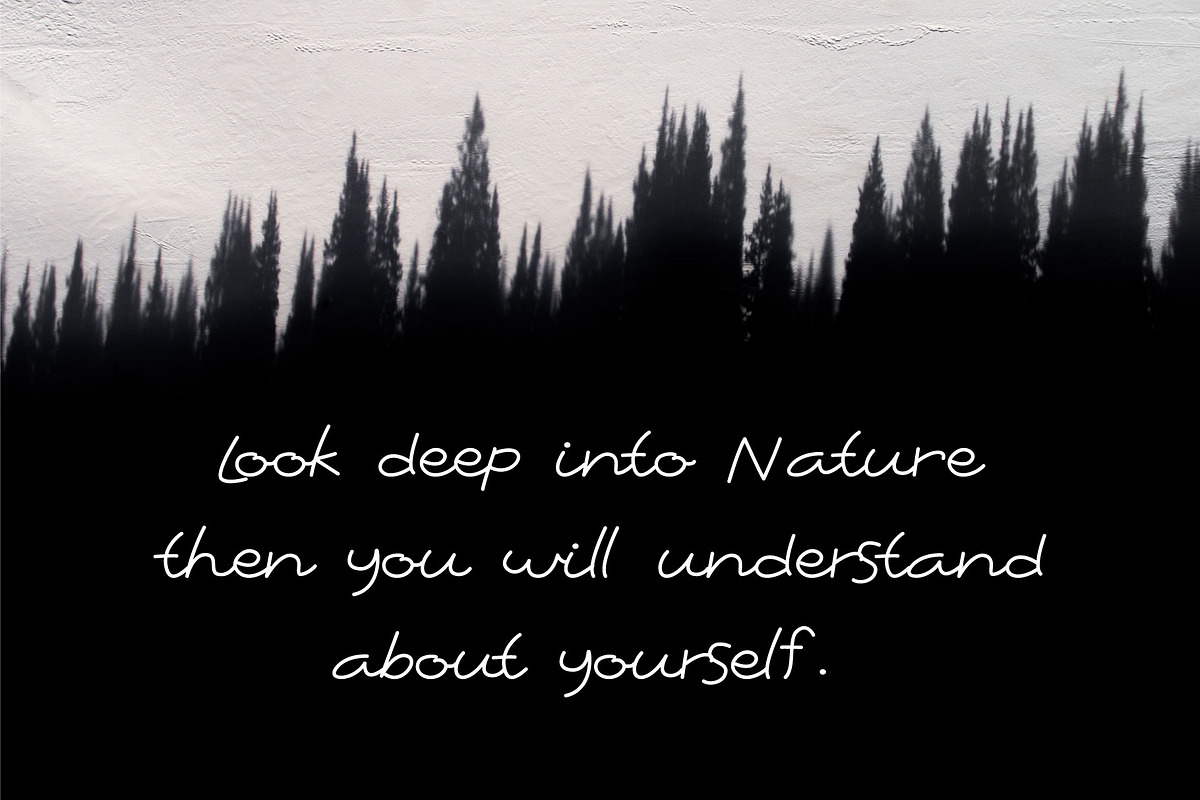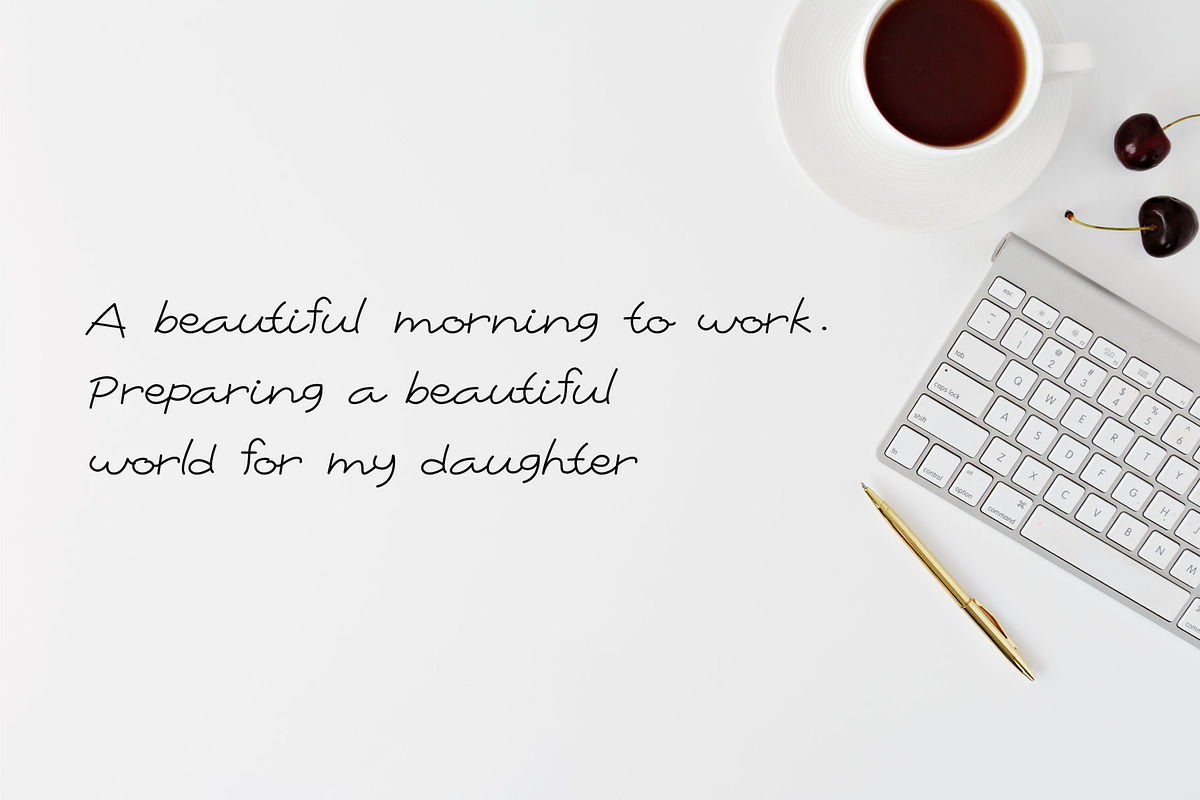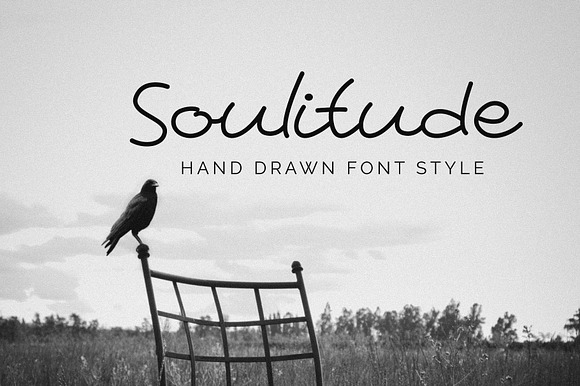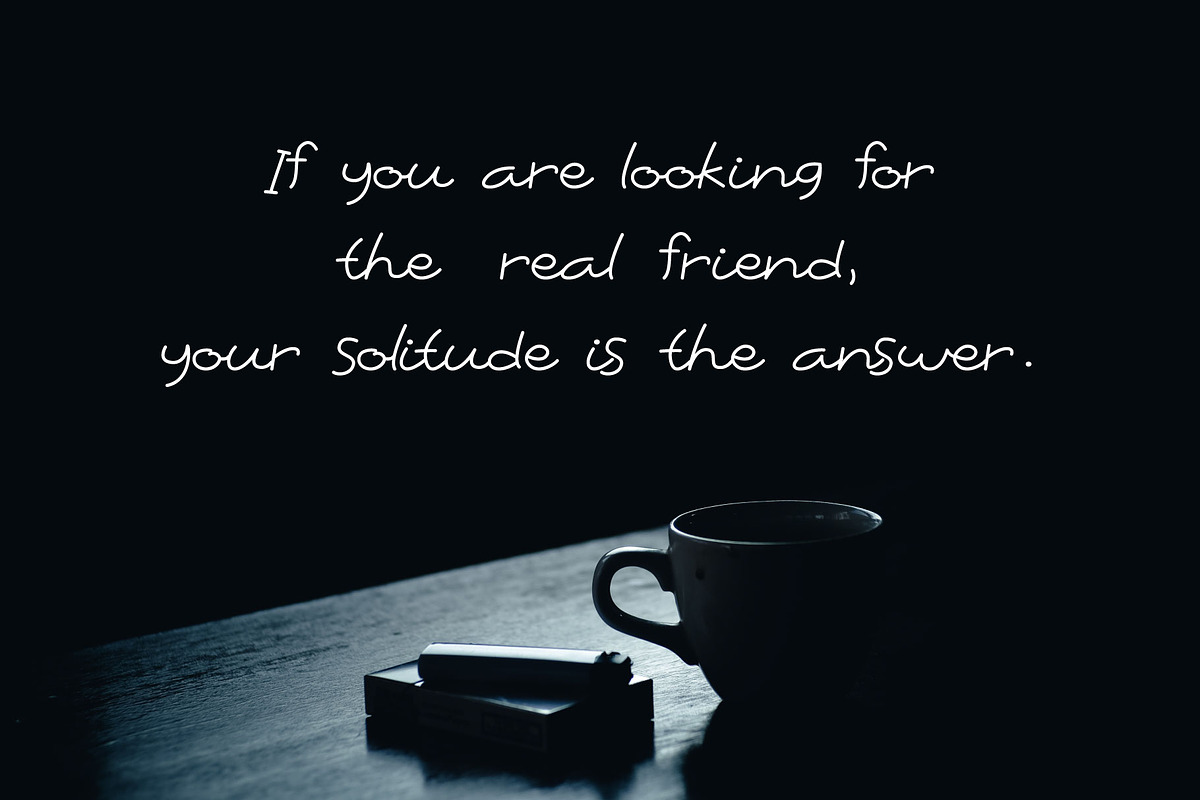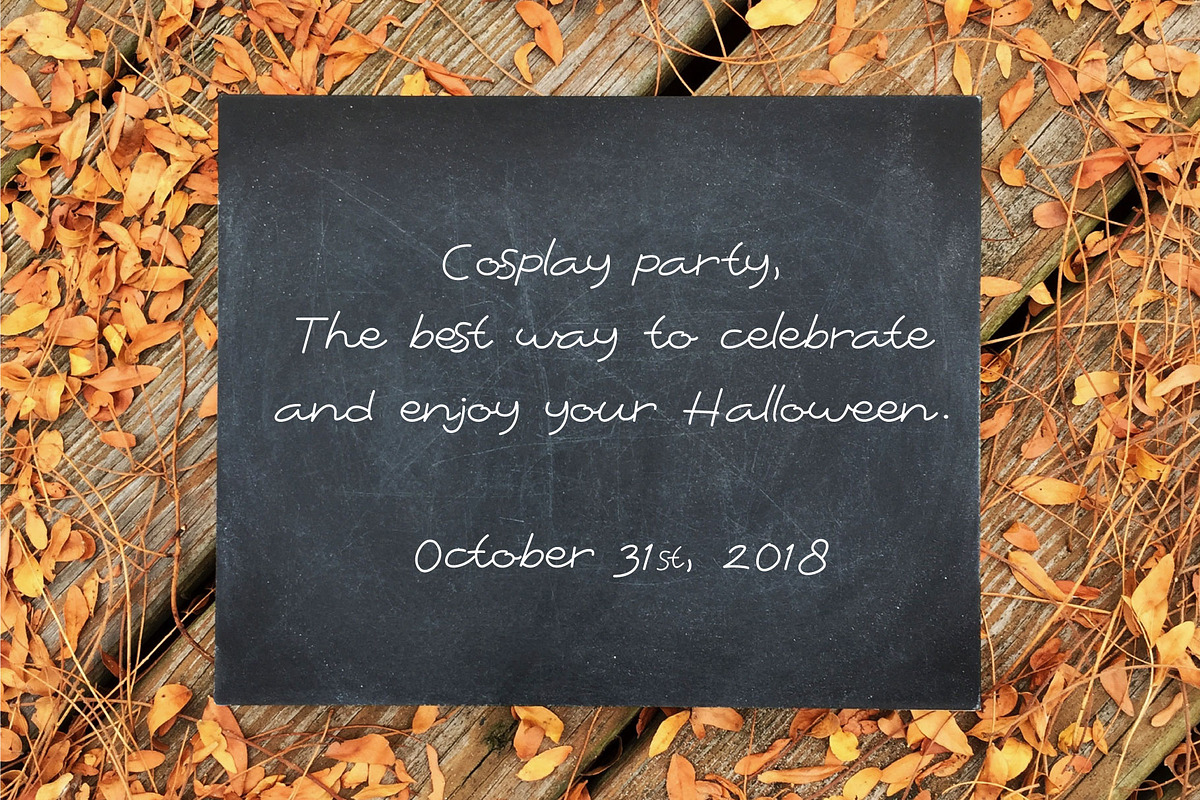
Soulitude - Hand drawn style font
Introducing the simple yet beautiful hand drawn font --- Soulitude
Try this font to write letter, quote, poetry, wedding invitations or others, and your write will have more soul!
Soulitude - Hand drawn style font by Mightyfire fits naturally into Branding, posters, packaging, typography.